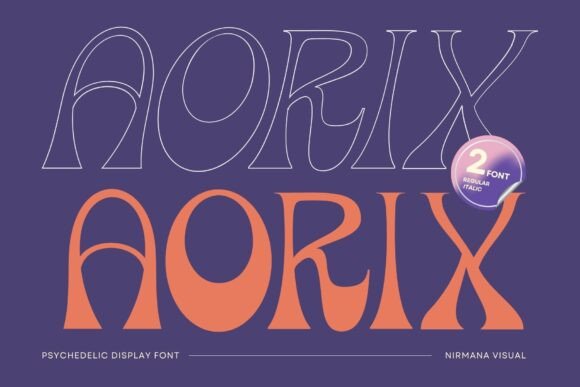
Aorix Psychedelic Font: A Vibrant Expression of the 1960s Counterculture Movement
The Aorix Psychedelic Font is a stunning representation of the vibrant and experimental design style that emerged during the 1960s counterculture movement. This font theme captures the essence of an era that celebrated freedom, nonconformity, and creativity, reflecting the spirit of a generation that sought to challenge traditional norms and values.
The Characteristics of Psychedelic Fonts
Psychedelic fonts, including the Aorix Psychedelic Font, are characterized by their unique and striking features. These fonts often incorporate:
- Vibrant Colors: Bright, bold, and clashing colors that reflect the playful and experimental nature of the psychedelic movement.
- Intricate Patterns: Complex and swirling patterns that evoke a sense of movement and energy.
- Mind-Bending Designs: Unconventional and innovative designs that challenge traditional typography and visual norms.
- Flowing Lines: Curved and fluid lines that create a sense of dynamism and fluidity.
- Exaggerated Curves: Amplified curves and rounded edges that add to the font’s playful and whimsical feel.
- Intricate Details: Elaborate and detailed designs that reflect the intricate patterns and shapes found in psychedelic art.
The Inspiration Behind Psychedelic Fonts
The psychedelic font theme draws inspiration from the hallucinogenic experiences and altered states of consciousness that were characteristic of the 1960s counterculture movement. The fonts often appear to:
- Dance or Morph: The letters seem to move or change shape, creating a sense of dynamism and visual interest.
- Evoking a Sense of Freedom: Psychedelic fonts embody the spirit of experimentation and nonconformity, reflecting the era’s desire for creative expression and social change.
- Mirroring the Spirit of the Era: These fonts capture the essence of a generation that sought to challenge traditional norms and values, embracing a more free-spirited and experimental approach to art and design.
The Aorix Psychedelic Font: A Modern Interpretation
The Aorix Psychedelic Font is a modern interpretation of the classic psychedelic font theme. This font combines the nostalgic feel of the 1960s with a fresh and contemporary approach, making it perfect for:
- Graphic Design Projects: The Aorix Psychedelic Font is ideal for graphic design projects that require a bold and eye-catching typography, such as posters, flyers, and brochures.
- Branding and Identity: This font can be used to create unique and memorable brand identities that reflect a company’s playful and creative personality.
- Art and Illustration: The Aorix Psychedelic Font is a great addition to any artist’s toolkit, allowing them to add a touch of psychedelic flair to their work.
The Cultural Significance of Psychedelic Fonts
Psychedelic fonts, including the Aorix Psychedelic Font, hold a significant place in design history, reflecting the cultural and social upheaval of the 1960s. These fonts:
- Represent a Generation: Psychedelic fonts evoke the spirit of a generation that sought to challenge traditional norms and values, embracing a more free-spirited and experimental approach to art and design.
- Influence on Design: The psychedelic font theme has influenced design trends, from graphic design to fashion, and continues to inspire artists and designers today.
- Symbolize Freedom and Creativity: Psychedelic fonts symbolize the freedom and creativity that defined the 1960s counterculture movement, continuing to inspire those who value self-expression and artistic innovation.
The Aorix Psychedelic Font is a vibrant and captivating representation of the psychedelic font theme, reflecting the essence of the 1960s counterculture movement. With its unique characteristics, inspiration from hallucinogenic experiences, and modern interpretation, this font is perfect for designers and artists seeking to add a touch of psychedelic flair to their work.